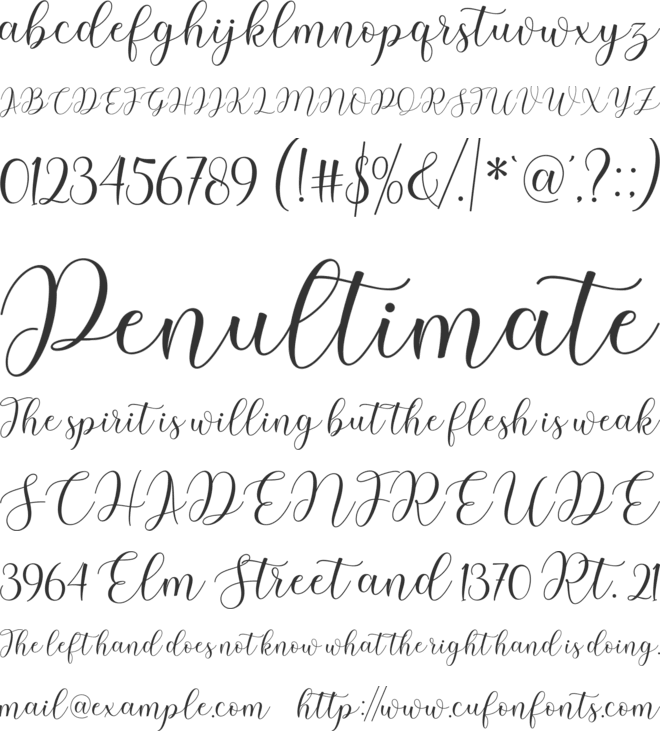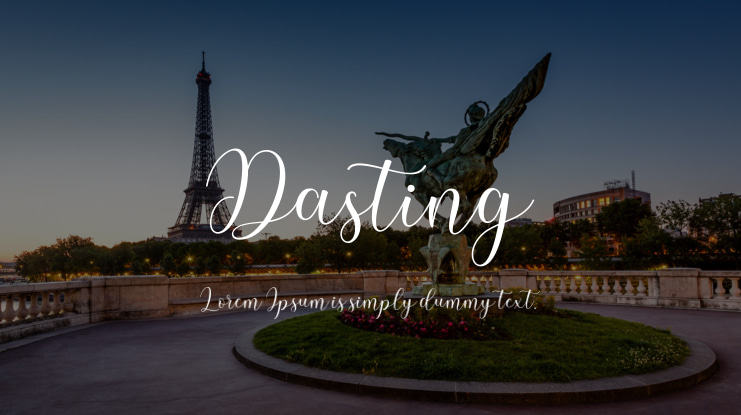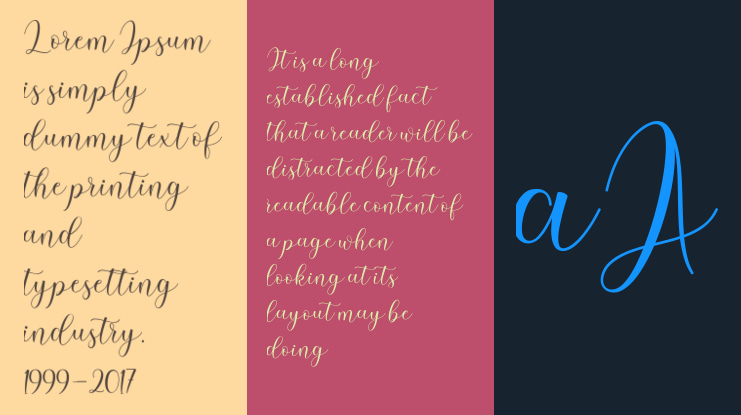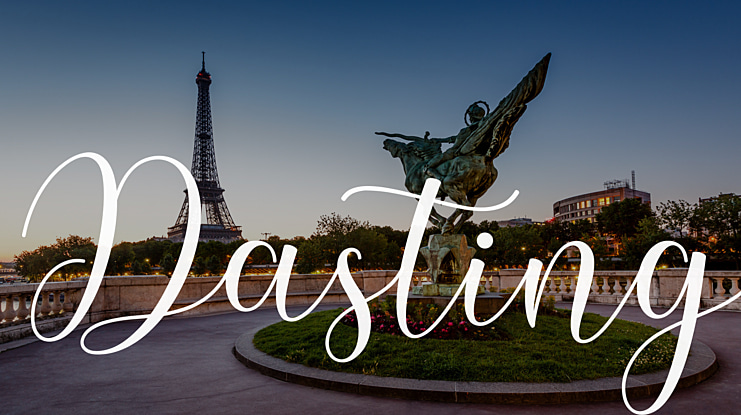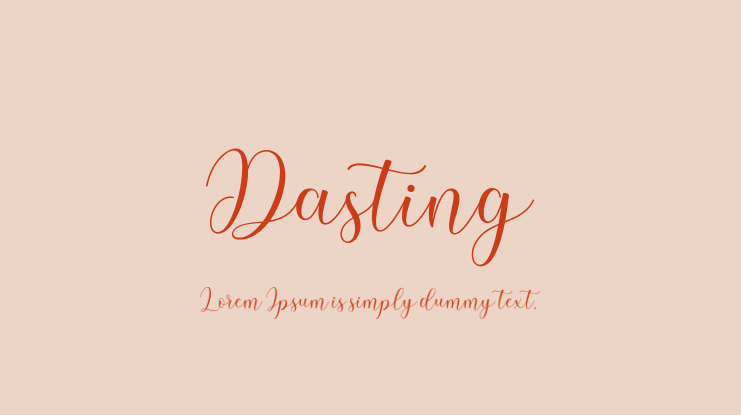
Dasting Font
The Dasting is an elegant font with which you can achieve a handwritten-type lettering feeling.
It has a nice flow so its perfect for adding a personal touch to long texts.